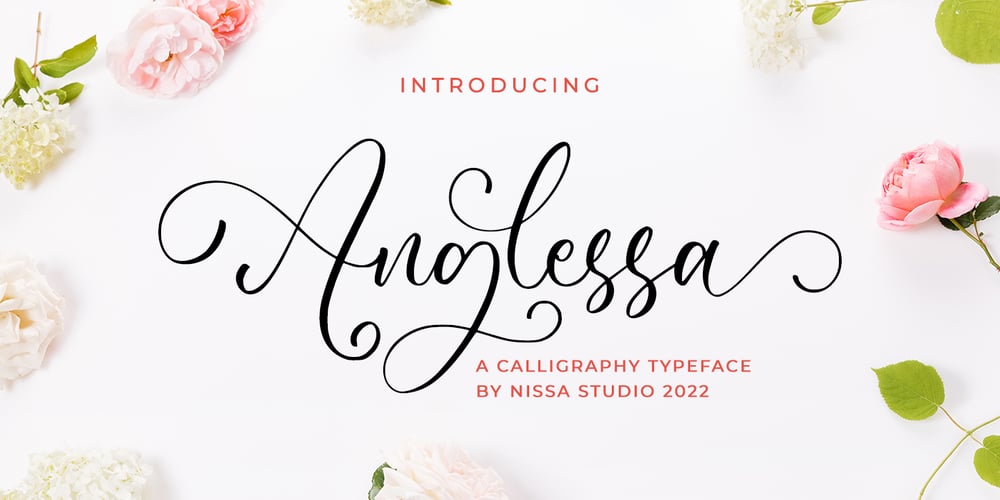
Anglessa
Anglessa font
Anglessa Font Family was designed by Novia Himatunnisa and published by Nissa Nana. Anglessa contains 1 styles and family package options. Anglessa is a lovely and delicate script font that exudes elegance and class. This font is perfect for those who need a beautiful and refreshing look to their designs.